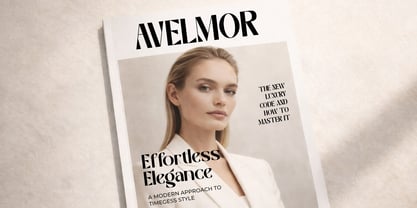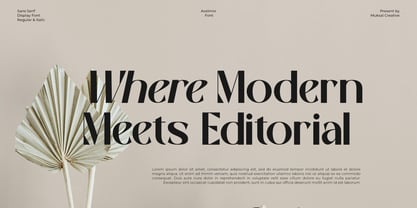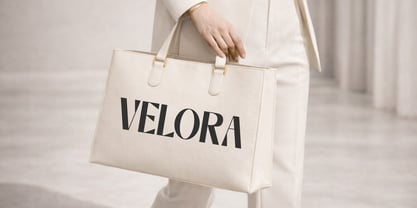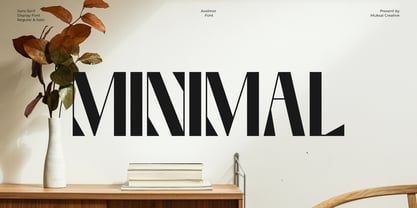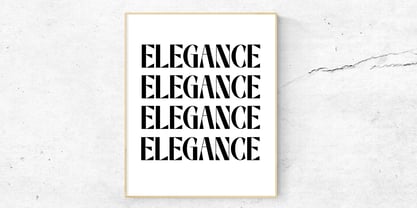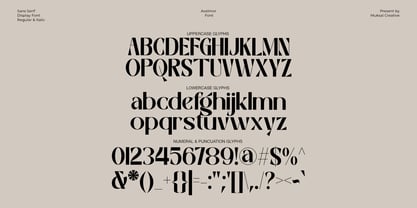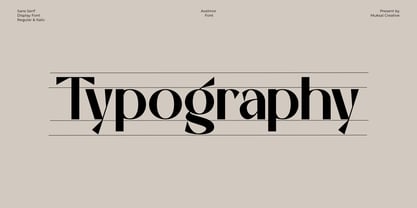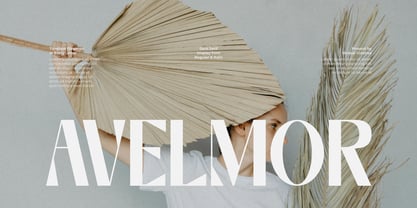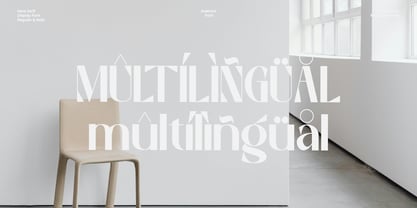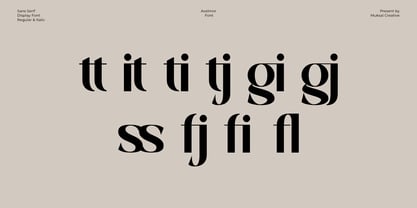
Avelmor
The Avelmor Font Family was designed by Muksalmina and published by Muksal Creatives. Avelmor contains 2 styles and family package options. More about this family
Avelmor is a contemporary hybrid Sans-Serif typeface that merges the elegance of classic serif detailing with the clarity of modern sans structure. Designed with refined contrast and clean proportions, Avelmor balances sculpted serif accents with a streamlined architectural form. The result is a distinctive typeface that feels both timeless and forward-looking — sophisticated yet minimal, expressive yet controlled. Its hybrid construction gives it remarkable versatility: strong enough for bold editorial headlines, yet clean enough for modern branding systems. The subtle serif details add character and luxury, while the structured letterforms maintain a crisp, contemporary presence. Avelmor is ideal for fashion editorials, luxury branding, identity systems, packaging, lookbooks, and refined digital layouts. Where tradition meets modern clarity — Avelmor delivers timeless elegance with a contemporary edge.